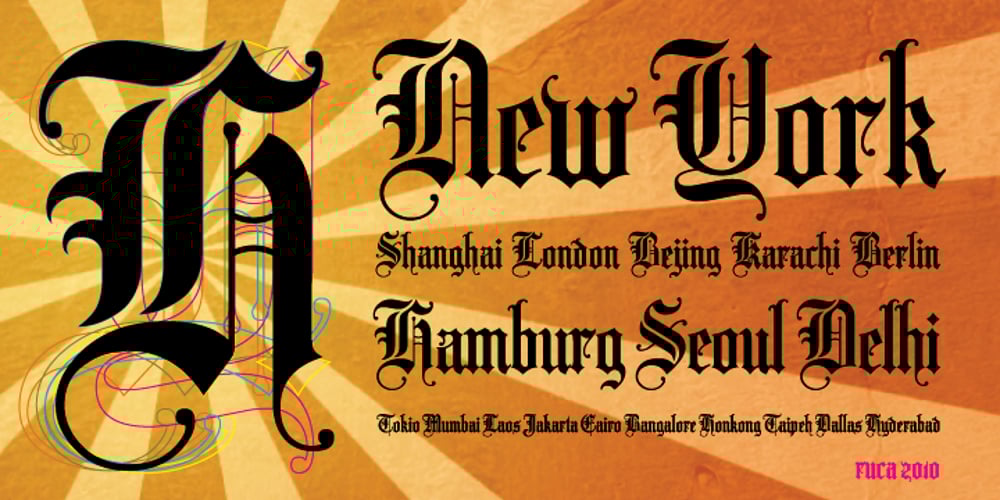
Ruca Font Family was designed by Jörn Oelsner and published by URW Type Foundry. Ruca contains 1 styles and family package options. Since my first contact with blackletters in 1999, I became more and more fascinated by these artistic looking typefaces. It all started in the USA at the age of 16, when I took an art class. I decided to trace some blackletter typefaces because they looked very interesting. From this point on I was intrigued by blackletter fonts from all over the world. I studied their different body structures and their cultural background as well as the type designers behind it. Full of information and inspiration I started to draw my own blackletter typeface in 2006. While studying in Hamburg I got in touch with the studio of URW++, where I got skilled in type software and development. Creating a type takes an eye for detail and patience but also lots of time and so it took almost 4 years until the project was finished. And so Ruca was born. Ruca is a refined and expanded typeface. When you look at the spines, the tails or the flags you can see the detailed drawing, which makes the font also extremely good looking in very tall letters. The full character set contains over 400 characters, many ligatures, two number sets and all important currency symbols. Over 300 kerning pairs and many OTF-features make the font easy in use for professional type applications. The typeface is very well applicable for strong headlines and mastheads. Because of its unique appearance, Ruca is perfectly suitable professional graphic applications such as fashion design or branding.